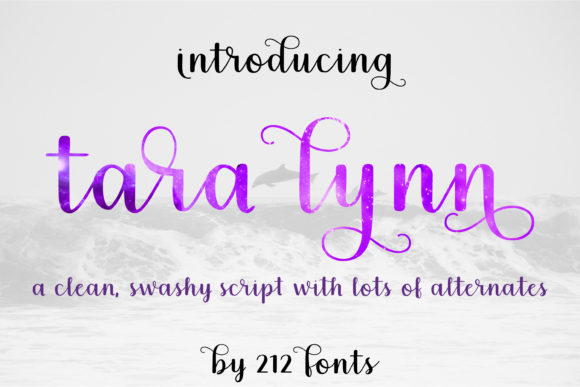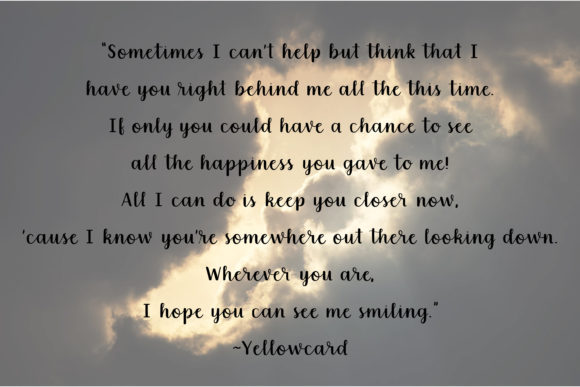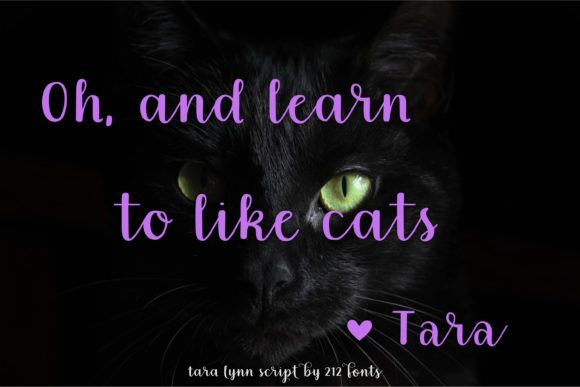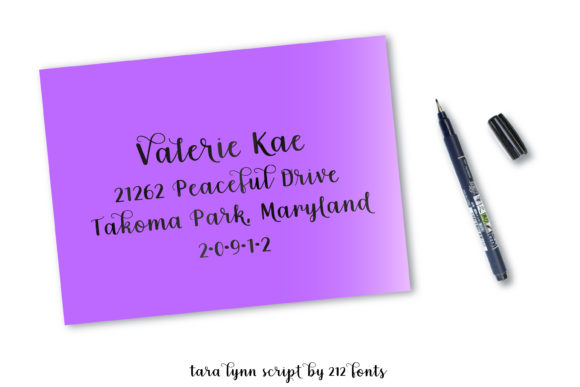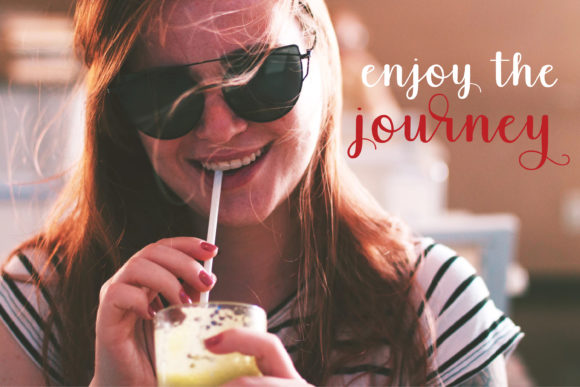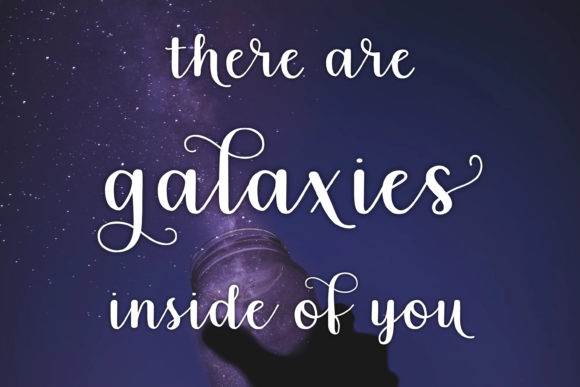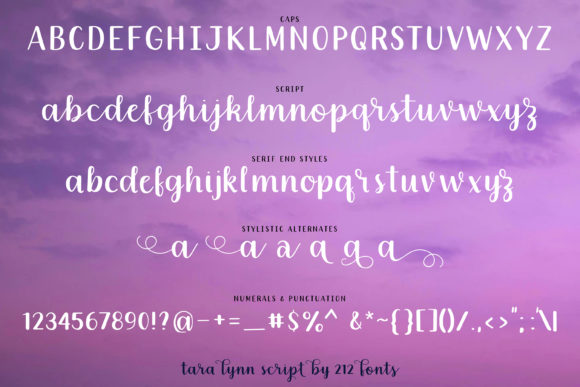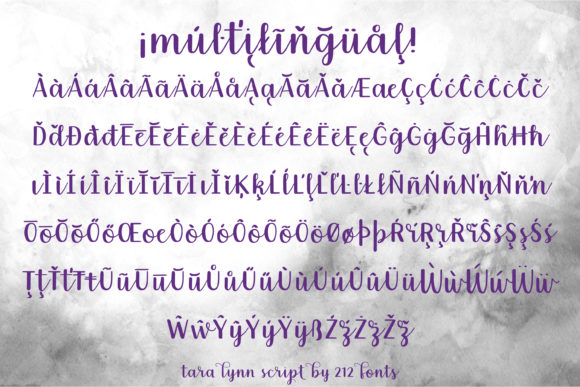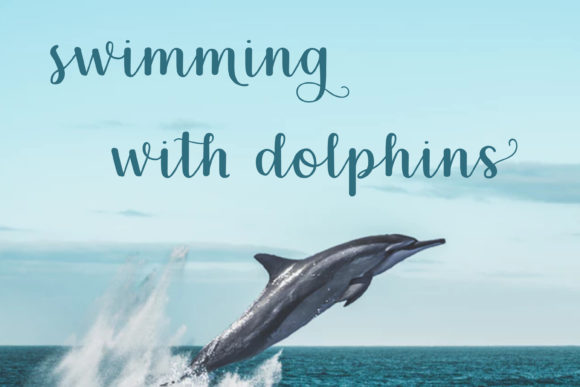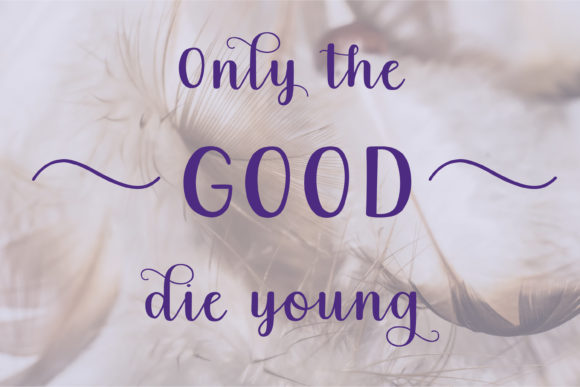
Tara Lynn Font
About Tara Lynn Font
Clean, swashy, and with lots of extra elements – Tara Lynn script is a truly unique script, perfect for any design idea that requires that personal touch!